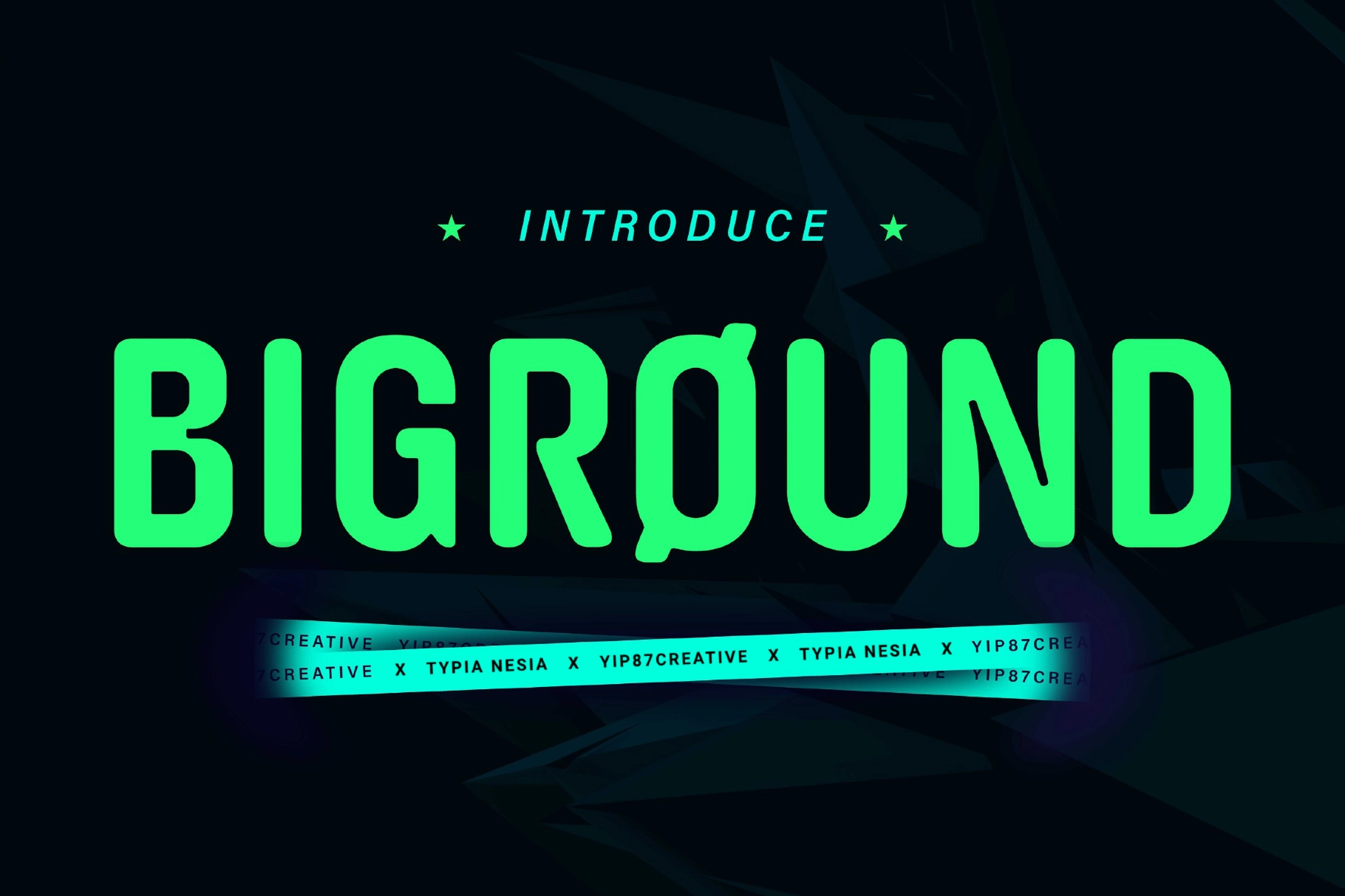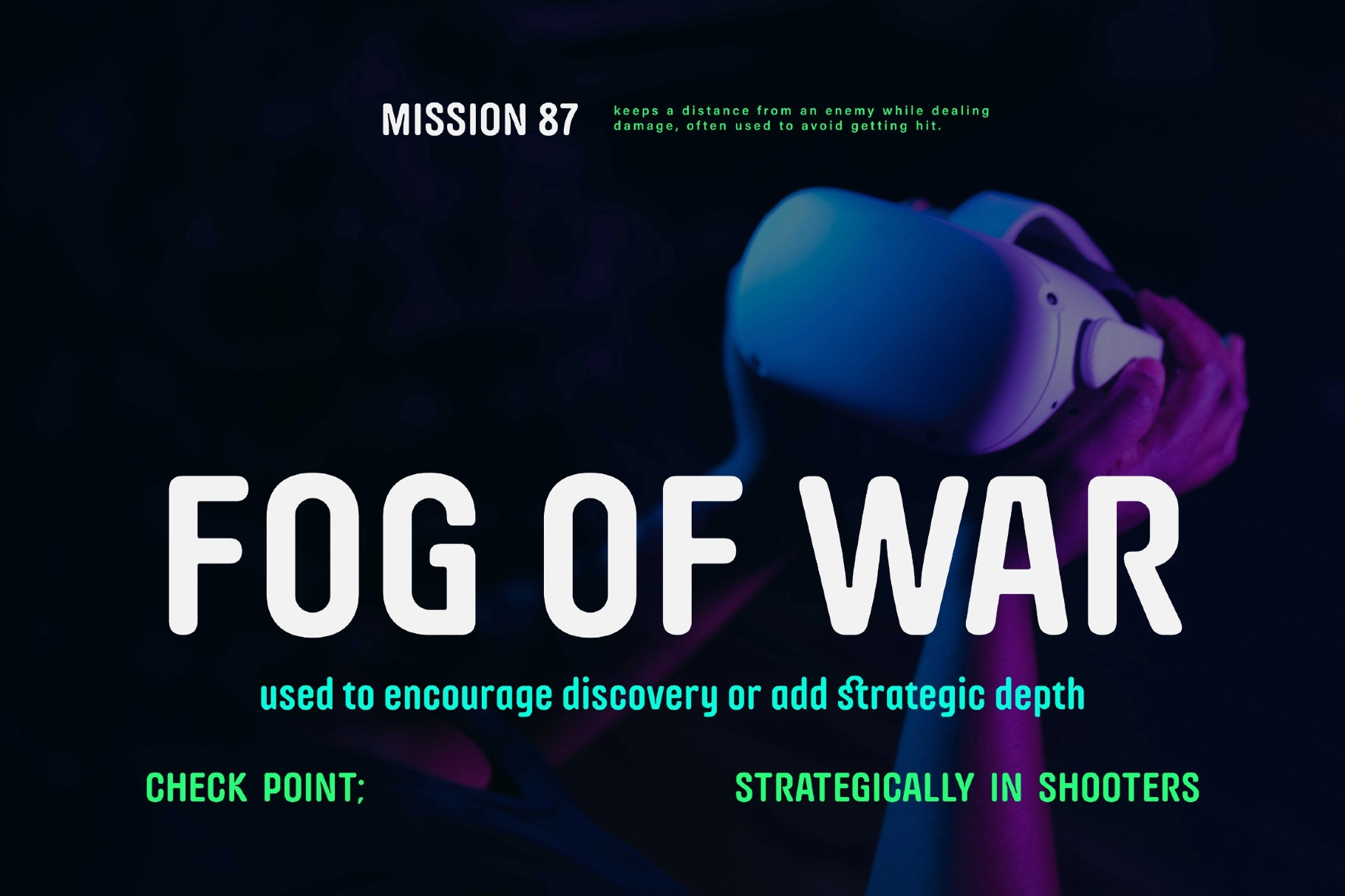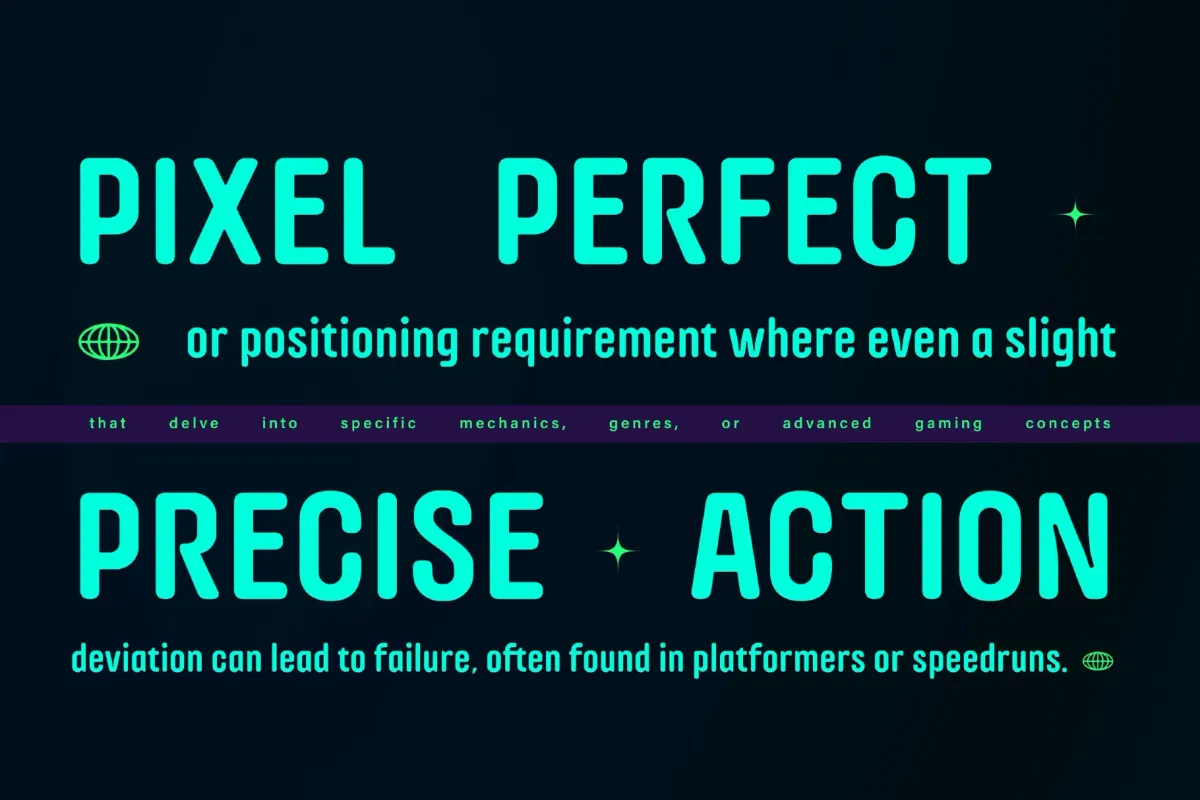
Biground - Modern Bold Rounded Sans
Biground
Biground - Modern Bold Rounded Sans is a clean and powerful typeface that combines modern minimalism with a bold, futuristic edge. Its rounded forms and condensed structure create a strong visual presence while maintaining a smooth and approachable feel.
Designed for high-impact visuals, Biground is perfect for logos, esports branding, gaming designs, posters, and modern advertising. Whether used in digital or print, it delivers a striking and contemporary look that ensures your projects stand out with confidence and clarity.
- Bold Rounded Condensed Style
- Modern & Futuristic Design